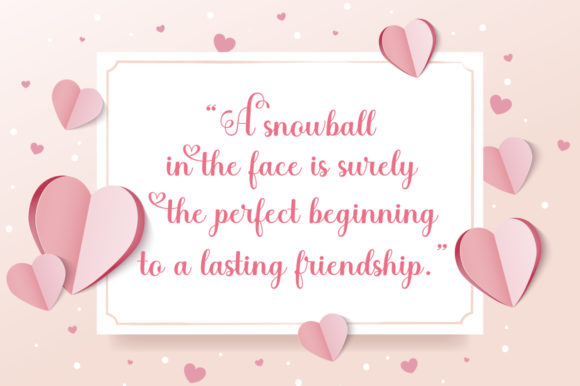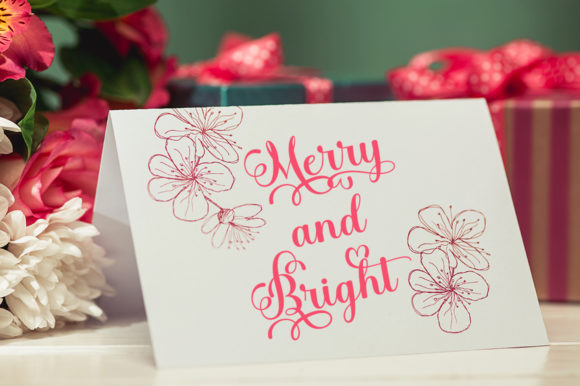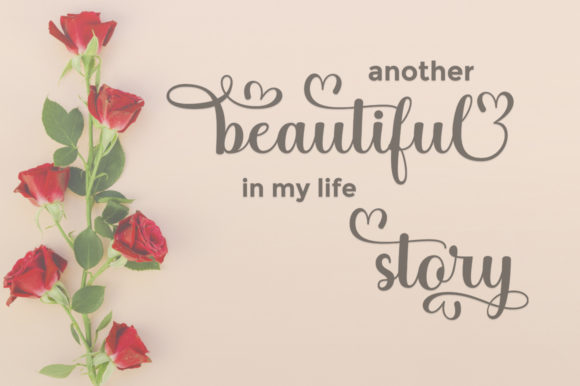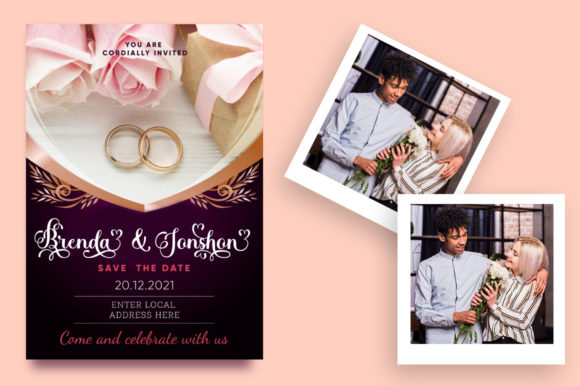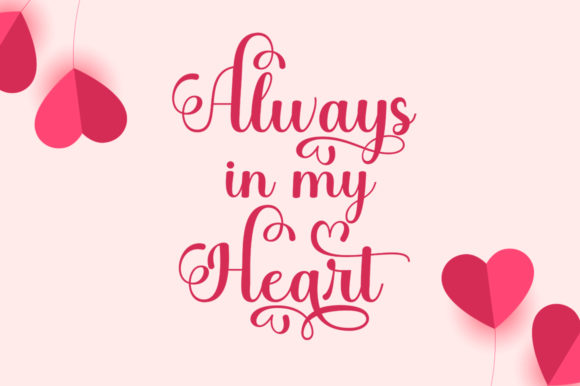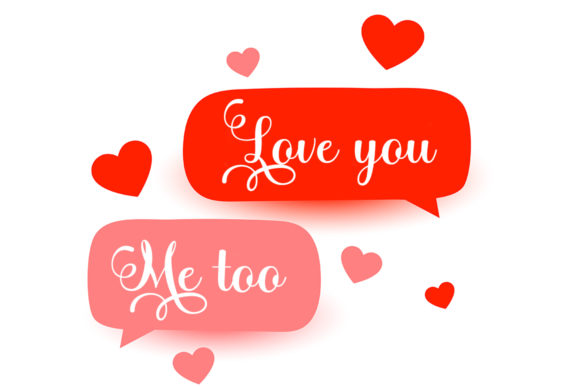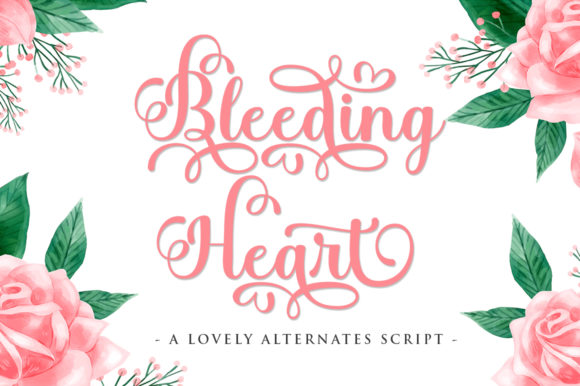
The Bleeding Heart Font: A Designer’s New Best Friend
I’ll never forget the time I was working on a project for a client who wanted a elegant and flowing script font to brand their new luxury product line. I spent hours scouring the internet for the perfect font, but nothing seemed quite right. That was until I stumbled upon the Bleeding Heart font. With its smooth, elegant lines and beautifully balanced character, it was love at first sight! In this article, I’ll share my experience with the Bleeding Heart font, its features, and how to make the most of it in your designs.
A Closer Look at Bleeding Heart
The Bleeding Heart font is a stunning handwritten script font that exudes elegance and sophistication. Its varied baseline, smooth lines, and gorgeous glyphs make it perfect for a wide range of designs, from luxury branding to wedding stationery.
What I Love About Bleeding Heart
- ✨ Smooth and elegant lines that flow beautifully
- ✅ Beautifully balanced character that fits perfectly into a wide set of designs
- 🌟 Varied baseline that adds a touch of whimsy and personality to your text
- 💥 Amazing alternatives and swashes that let you customize your text to your heart’s content
While the Bleeding Heart font is an amazing addition to any design project, there are a few things to keep in mind:
- ⚠️ Some of the more intricate swashes and glyphs can be a bit finicky to access, especially for beginners.
- 🤔 The font’s elegance and sophistication may not be the best fit for more playful or casual designs.
The Story Behind Bleeding Heart
The Bleeding Heart font was designed by a talented type designer who wanted to create a font that was both elegant and playful. Inspired by the beauty of handwritten scripts, the designer poured their heart and soul into creating a font that would bring joy and creativity to designers and crafters alike.
| Font Name | Bleeding Heart Font |
| Author | Romie Creative |
| What is the Bleeding Heart font? | The Bleeding Heart font is a smooth, elegant, and flowing handwritten script font with a beautifully balanced character. |
| Is the Bleeding Heart font PUA encoded? | Yes, the Bleeding Heart font is PUA encoded, which means you can access all of the glyphs and swashes with ease! |
| What kind of designs is the Bleeding Heart font best suited for? | The Bleeding Heart font is perfect for designs that need a touch of elegance and sophistication, such as luxury branding, wedding stationery, and high-end advertising. |